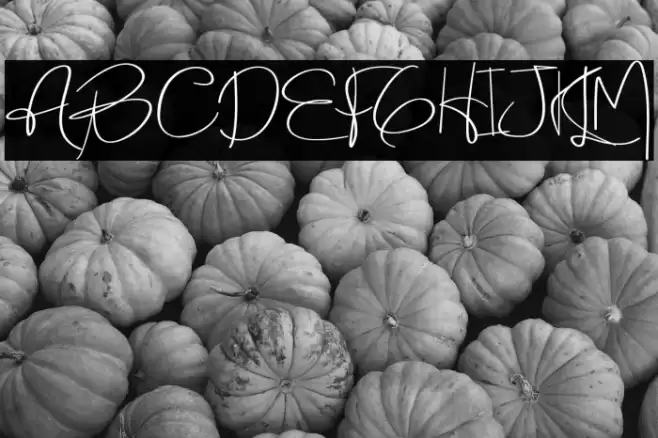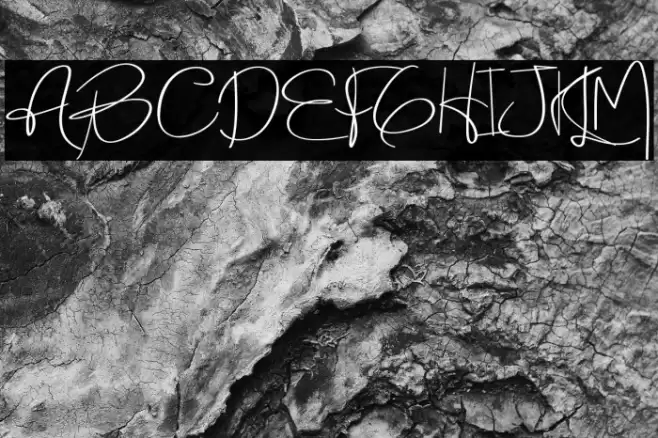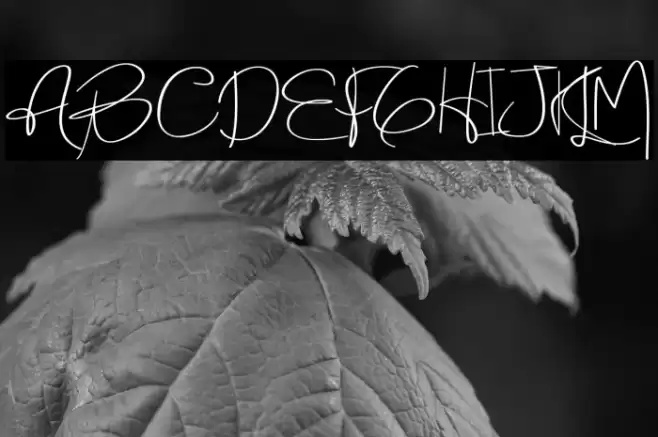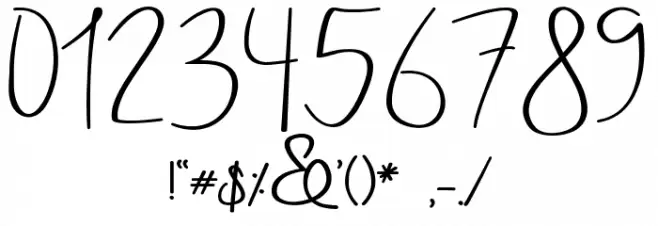
Holmes Signature Font
Holmes Signature Description
This font exudes a sense of elegance and fluidity, characterized by its cursive, handwritten style. The letters are interconnected with smooth, flowing lines that create a sense of movement and grace. The uppercase letters are tall and slender, with distinctive loops and curves that add a touch of sophistication. The lowercase letters maintain a consistent flow, with some characters featuring unique flourishes that enhance the overall aesthetic. The numbers are clear and legible, maintaining the same elegant style. Special characters are thoughtfully designed to complement the alphabet, ensuring a cohesive look across all text. This font is perfect for projects that require a personal, artistic touch.
An elegant, cursive handwritten font with flowing lines and sophisticated curves from Uncategorized fonts.
- Font: Holmes Signature
- Proposed Projects: Ideal for wedding invitations, personal branding, greeting cards, and artistic projects.
- Overall Style: Elegant, Artistic
- Use Case: Logos, Invitations, Artistic projects